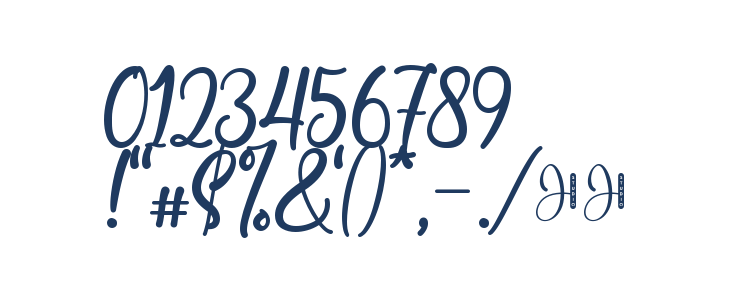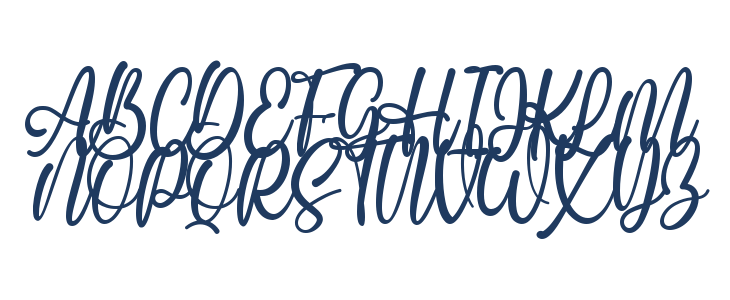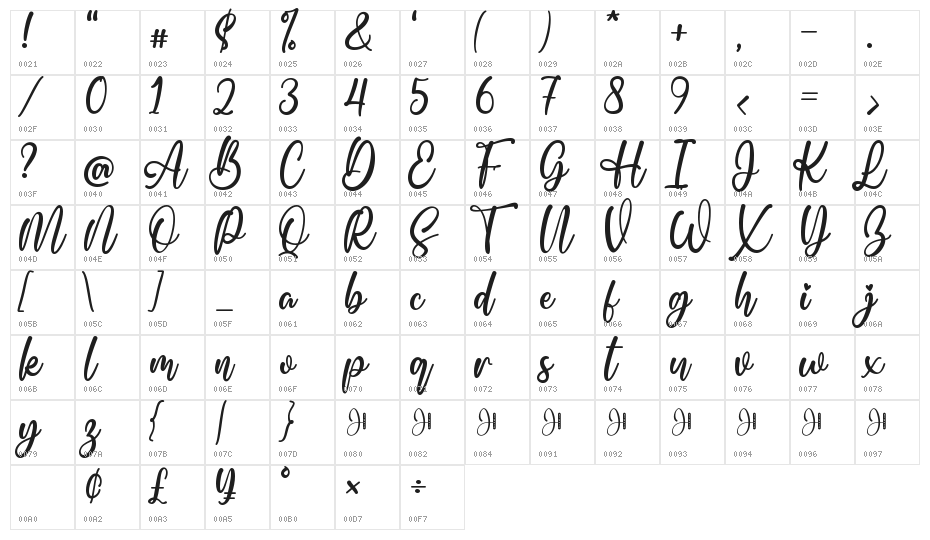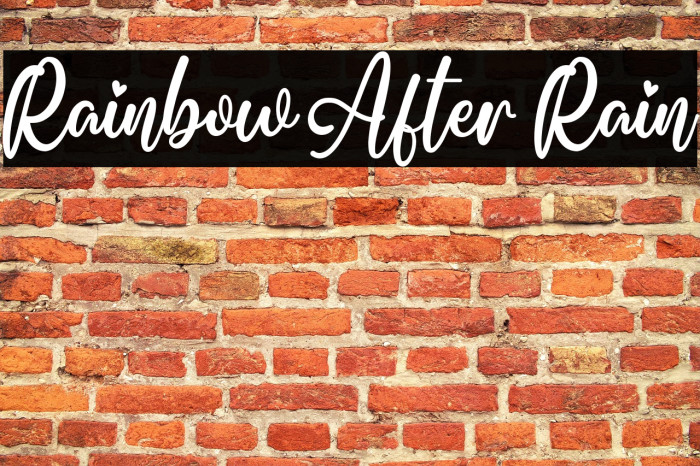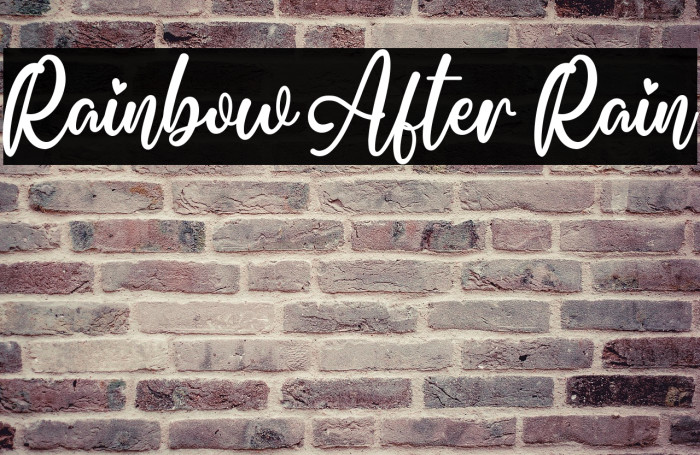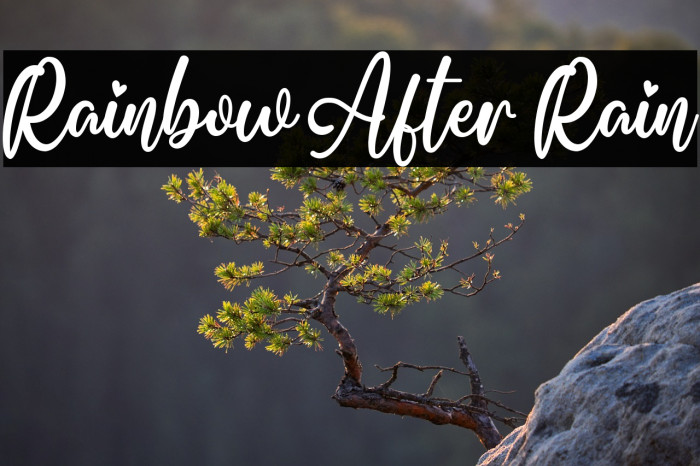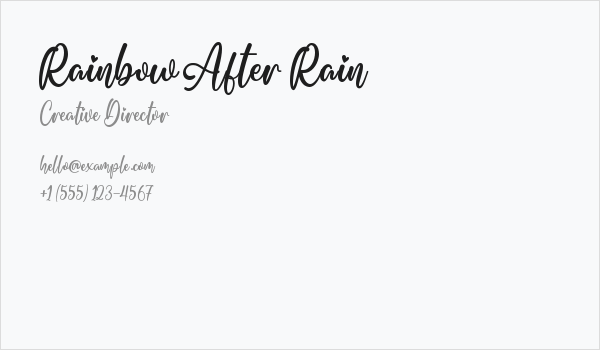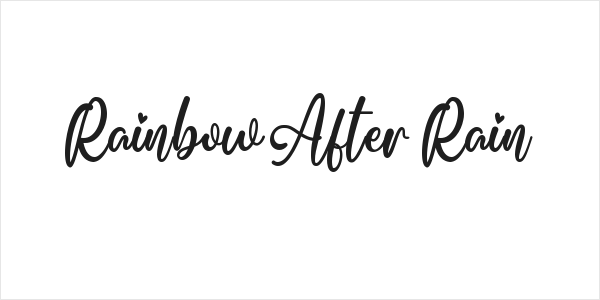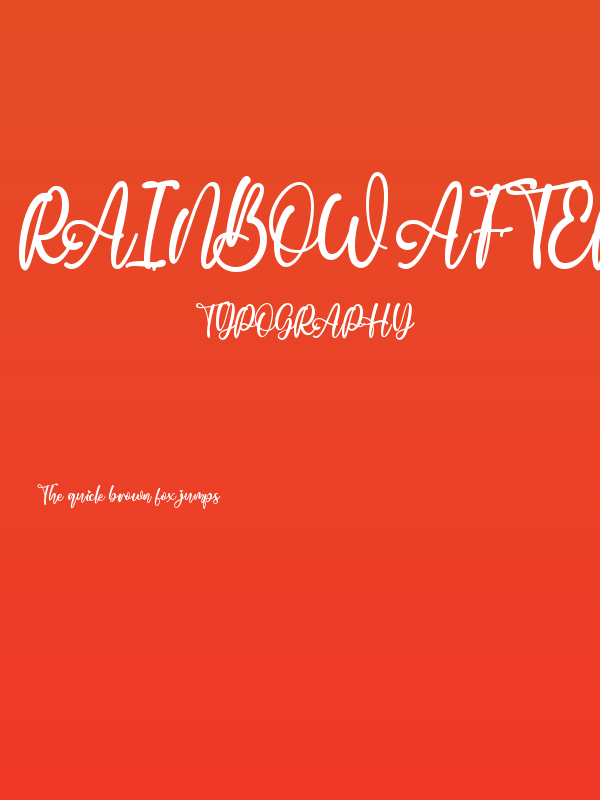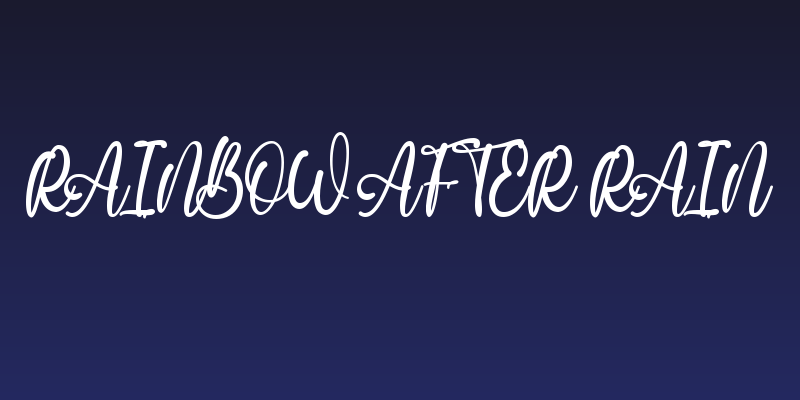
Rainbow After Rain Font
Rainbow After Rain Description
A playful, modern script font with fluid, connected letterforms and a handwritten appearance. The strokes are bold and consistent, with rounded terminals and a casual, friendly vibe. Both uppercase and lowercase letters are highly stylized, and the numerals and symbols maintain the same energetic flow.
| Overall Style | Modern, Decorative, Playful |
| Use Case | Logos, Headlines, Invitations, Social media posts |
| Proposed Projects | Greeting cards, invitations, branding, social media graphics, quotes, packaging. |